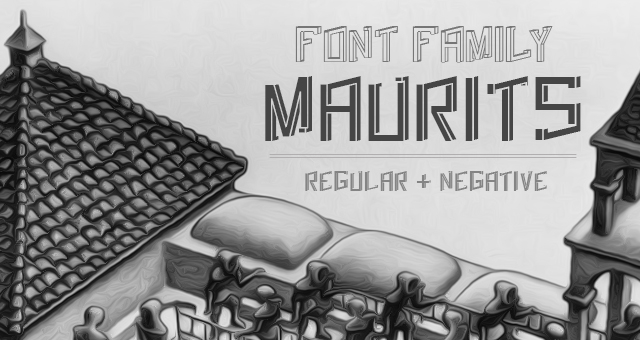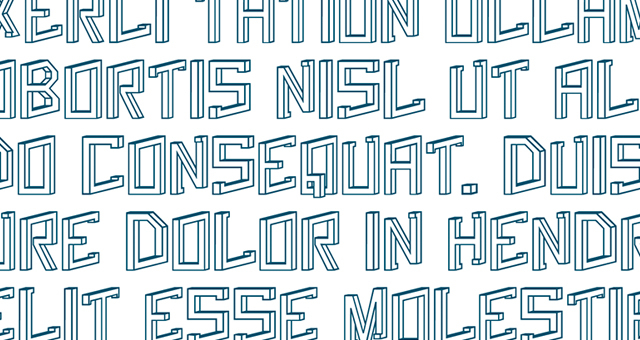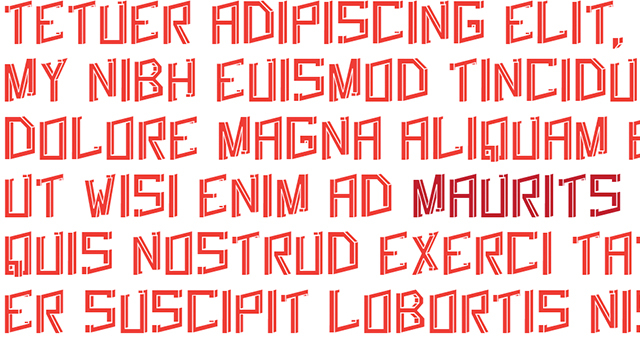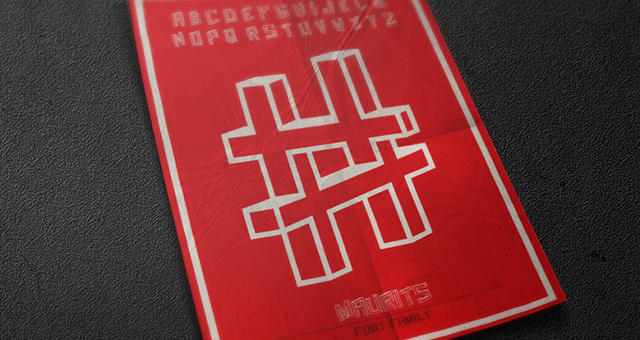
Maurits
Maurits is a font family which is based on cube impossible, found in the work of artist MC Escher.
Designer: Marcos Mazzei
Publisher: Marcos Mazzei